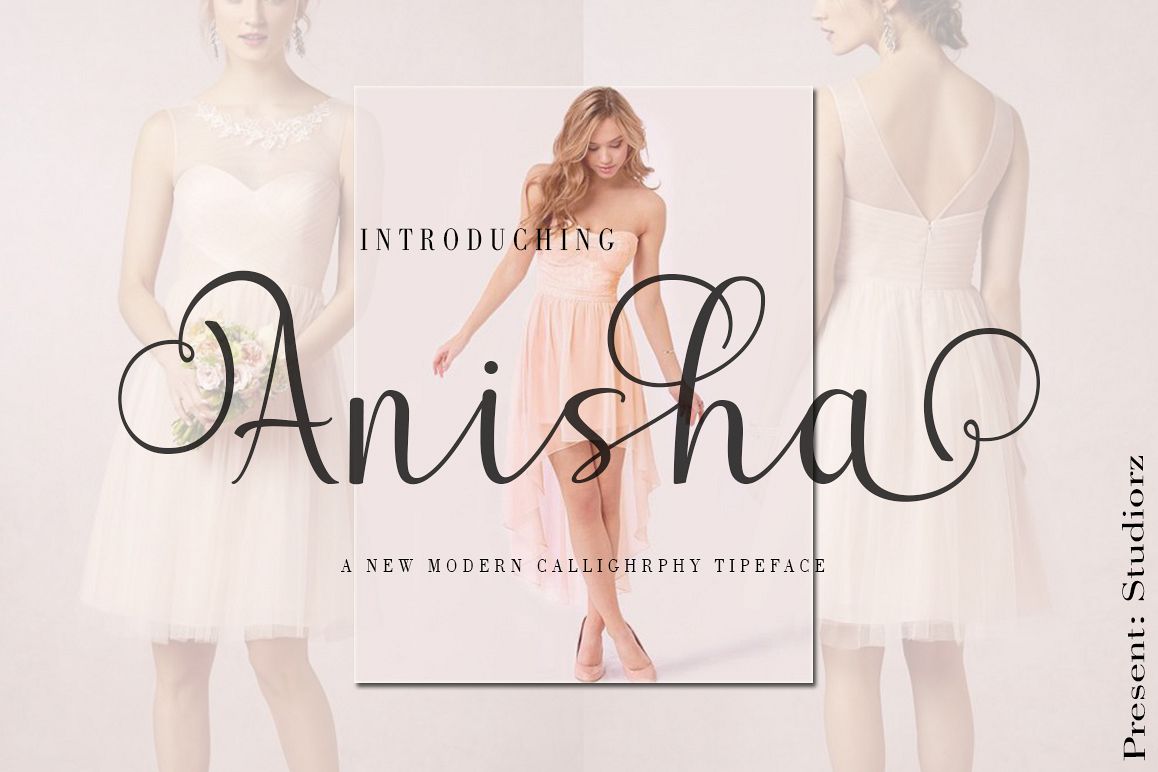
Anisha
INTRODUCING;
Anisha Modern Calligraphy. This font was designed by handwriting, and it has a modern and unique forms of calligraphy, the writing style is very natural. Anisha has a very unique style of calligraphy, it is very suitable for use in the work of modern design.
The Features of this fonts is:
* Standar ligatures
* Stylistic Alternates
* PUA Unucode  (Private Use Areas)
* Swash font
Can be used for various purposes.such as headings, logos, wedding invitation, t-shirt, letterhead, lable, news, posters, badges etc. To enable the OpenType Stylistic alternates, you need a program that supports OpenType features such as Adobe Illustrator CS, Adobe Indesign & CorelDraw X6-X7.a font that made the hand by having the character up and down like a dancer. Anisha has a very unique style of calligraphy, it is very suitable for use in the work of modern design